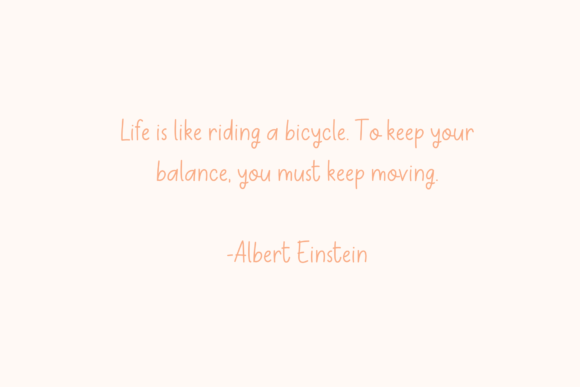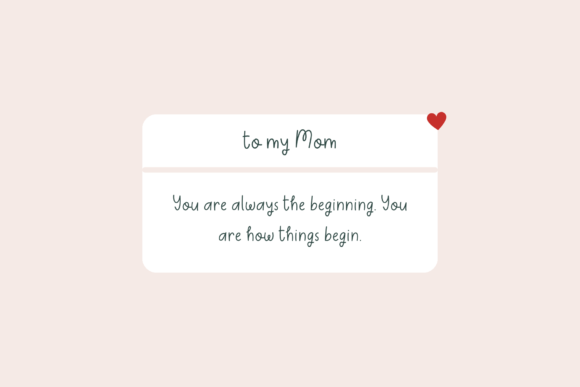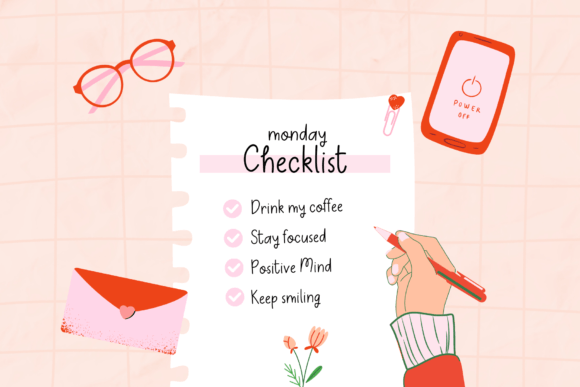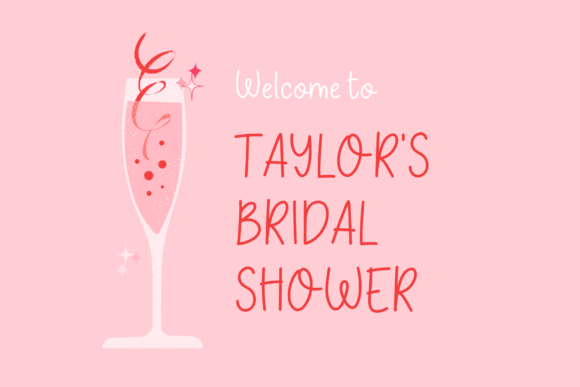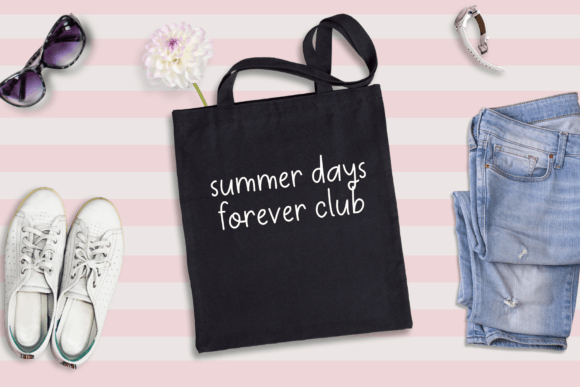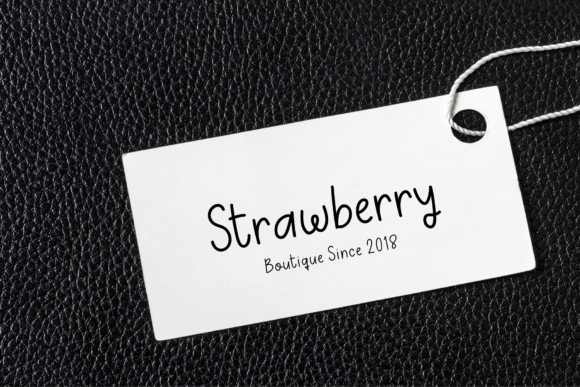
Introducing Carrot Cake Font: The Ultimate Handwritten Delight for Your Designs
Are you tired of using the same old fonts for your designs? Do you want to add a touch of happiness and fun to your projects? Look no further than the Carrot Cake Font! This delightful handwritten font is perfect for designers and crafters who want to bring a smile to their audience’s faces. In this article, we’ll dive into the world of Carrot Cake Font and explore its features, uses, and benefits.
What is Carrot Cake Font?
Carrot Cake Font is a happy handwritten font that is designed to bring a sense of joy and playfulness to your designs. Its unique and quirky style makes it perfect for a wide range of projects, from branding and packaging to logotypes, headlines, and wedding invitations. With its bouncy and irregular strokes, Carrot Cake Font is sure to add a touch of whimsy to any design.
Features of Carrot Cake Font
So, what makes Carrot Cake Font so special? Here are just a few of its standout features:
- Handwritten style: Carrot Cake Font is a genuine handwritten font, which gives it a personal and authentic feel.
- Unique and quirky: The font’s irregular strokes and bouncy style make it truly one-of-a-kind.
- Highly legible: Despite its playful style, Carrot Cake Font is highly legible, even at small sizes.
- Versatile: This font can be used for a wide range of projects, from digital designs to print materials.
Uses for Carrot Cake Font
So, what can you use Carrot Cake Font for? The possibilities are endless! Here are just a few ideas to get you started:
- Branding: Use Carrot Cake Font to create a fun and playful brand identity that will stand out from the crowd.
- Packaging: Add a touch of whimsy to your product packaging with this delightful font.
- Logotype: Create a memorable logotype that will leave a lasting impression on your audience.
- Headline: Use Carrot Cake Font to create eye-catching headlines that will grab attention.
- Wedding invitation: Add a touch of romance and playfulness to your wedding invitations with this beautiful font.
Benefits of Using Carrot Cake Font
So, why should you choose Carrot Cake Font for your designs? Here are just a few benefits:
- Adds a touch of happiness: This font is guaranteed to bring a smile to your audience’s faces.
- Increases engagement: The playful style of Carrot Cake Font can help increase engagement and interaction with your audience.
- Stand out from the crowd: This unique font will help your designs stand out from the crowd and leave a lasting impression.
Tips for Using Carrot Cake Font
Here are a few tips for getting the most out of Carrot Cake Font:
- Use it sparingly: While Carrot Cake Font is playful and fun, it can be overwhelming if used too much. Use it sparingly to create a balanced design.
- Pair it with other fonts: Experiment with pairing Carrot Cake Font with other fonts to create a unique and interesting combination.
- Experiment with colors: Don’t be afraid to experiment with different colors and textures to add depth and interest to your design.
In conclusion, Carrot Cake Font is a delightful handwritten font that is perfect for designers and crafters who want to add a touch of happiness and fun to their designs. With its unique and quirky style, highly legible letters, and versatility, this font is sure to become a favorite in your design arsenal. So why not give it a try and see the difference it can make in your designs?